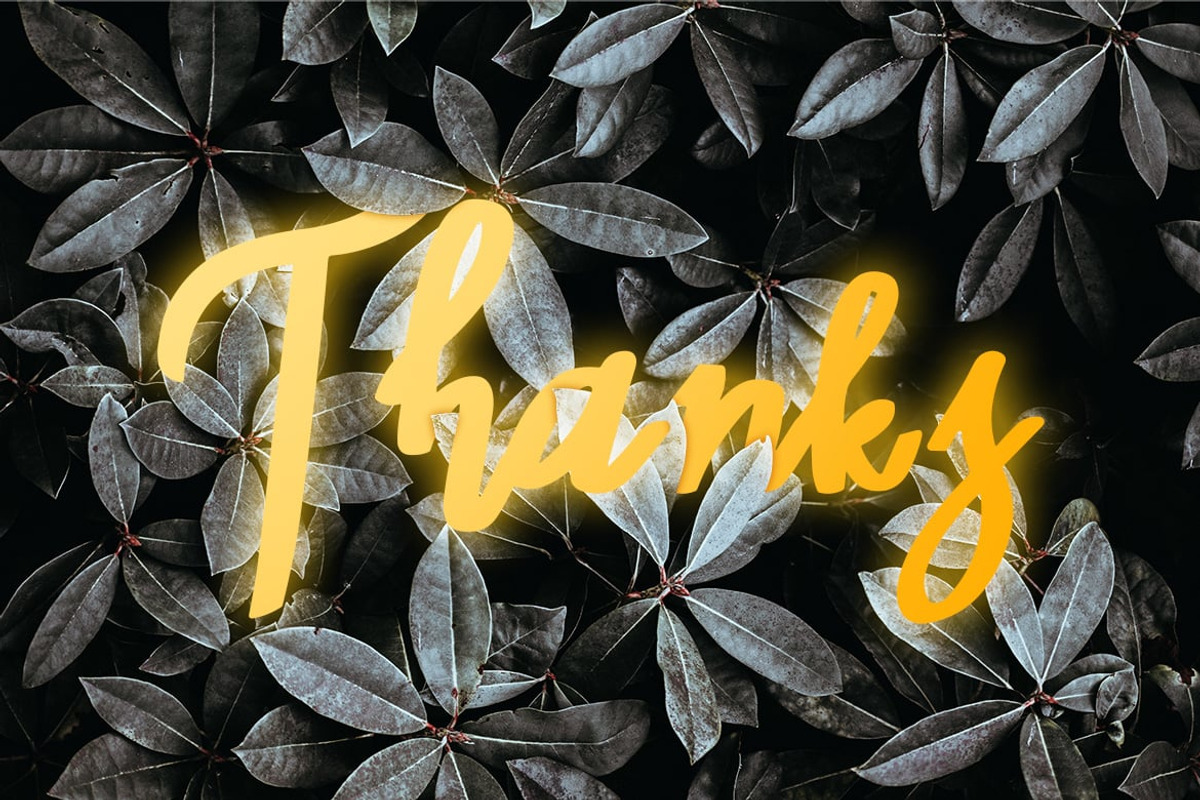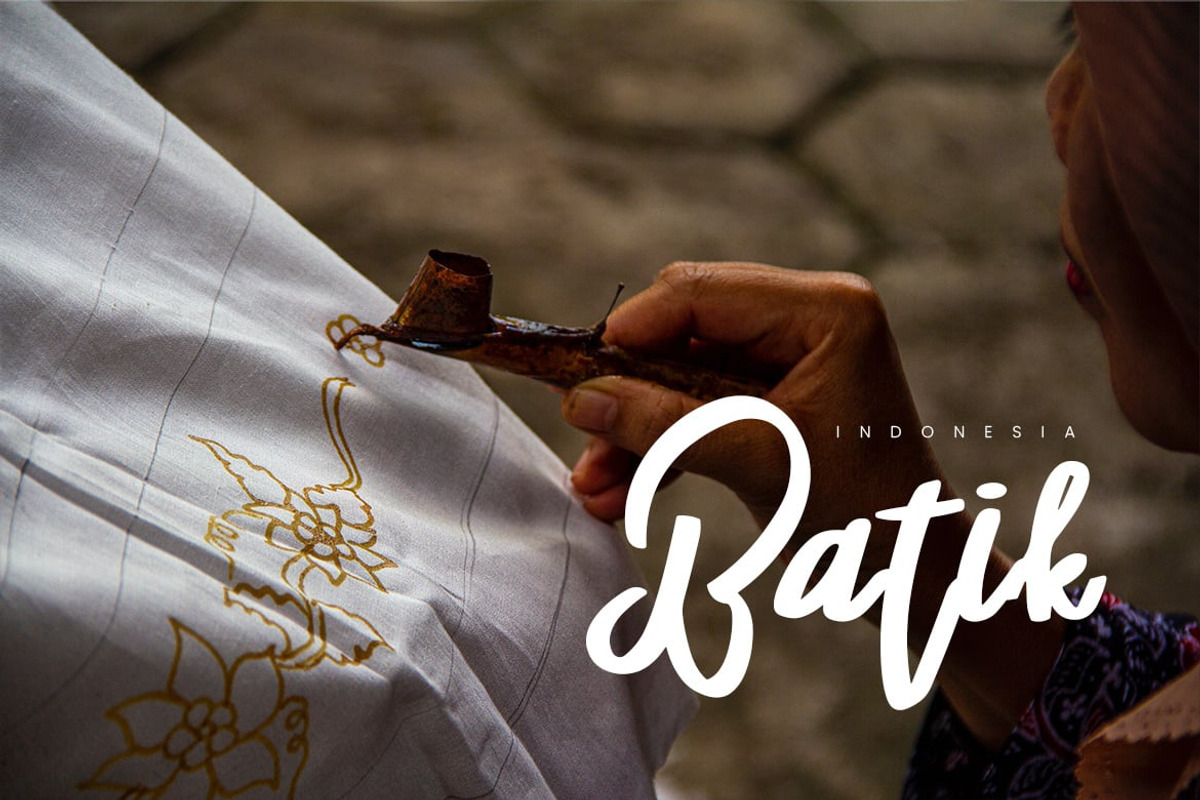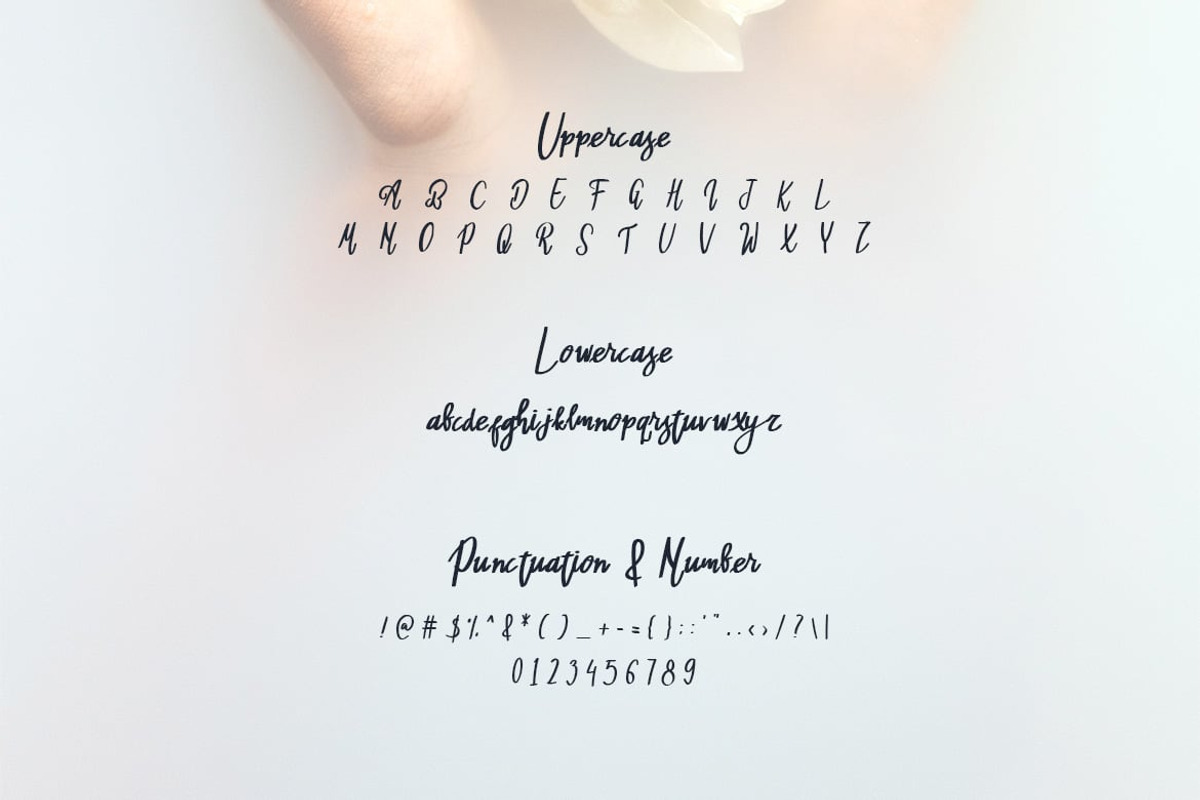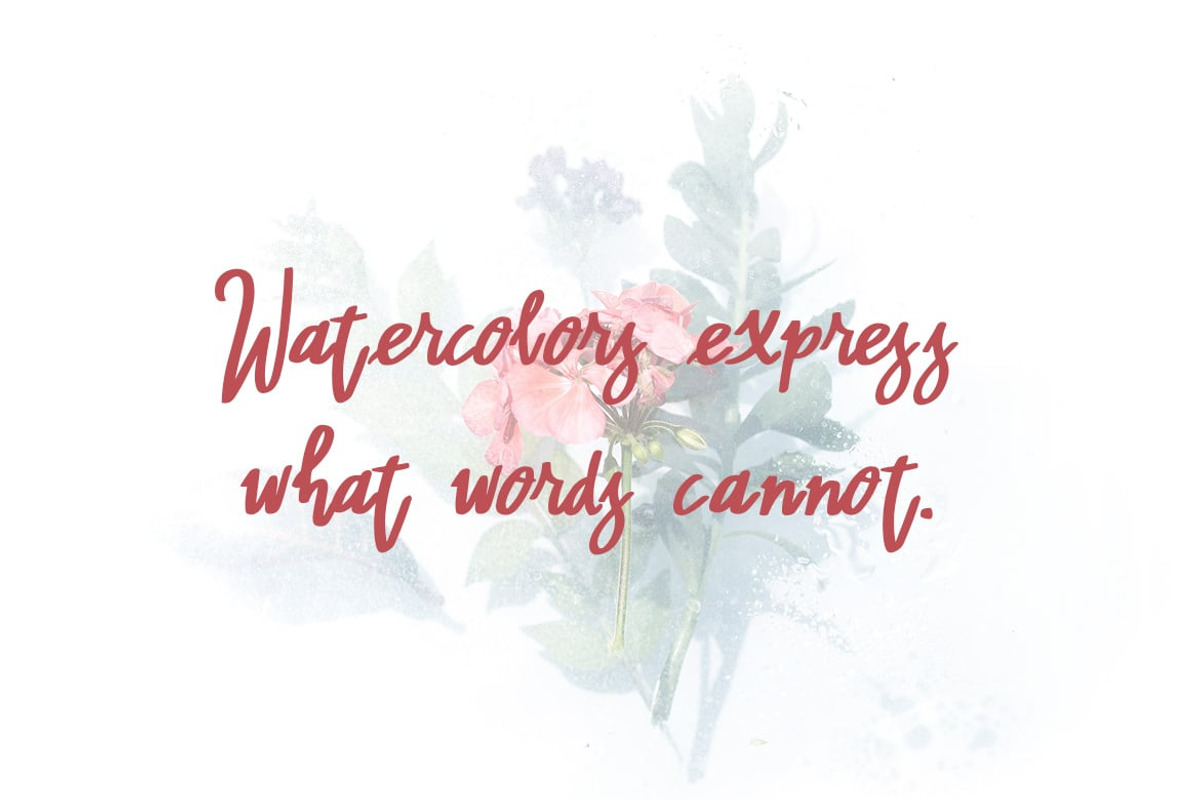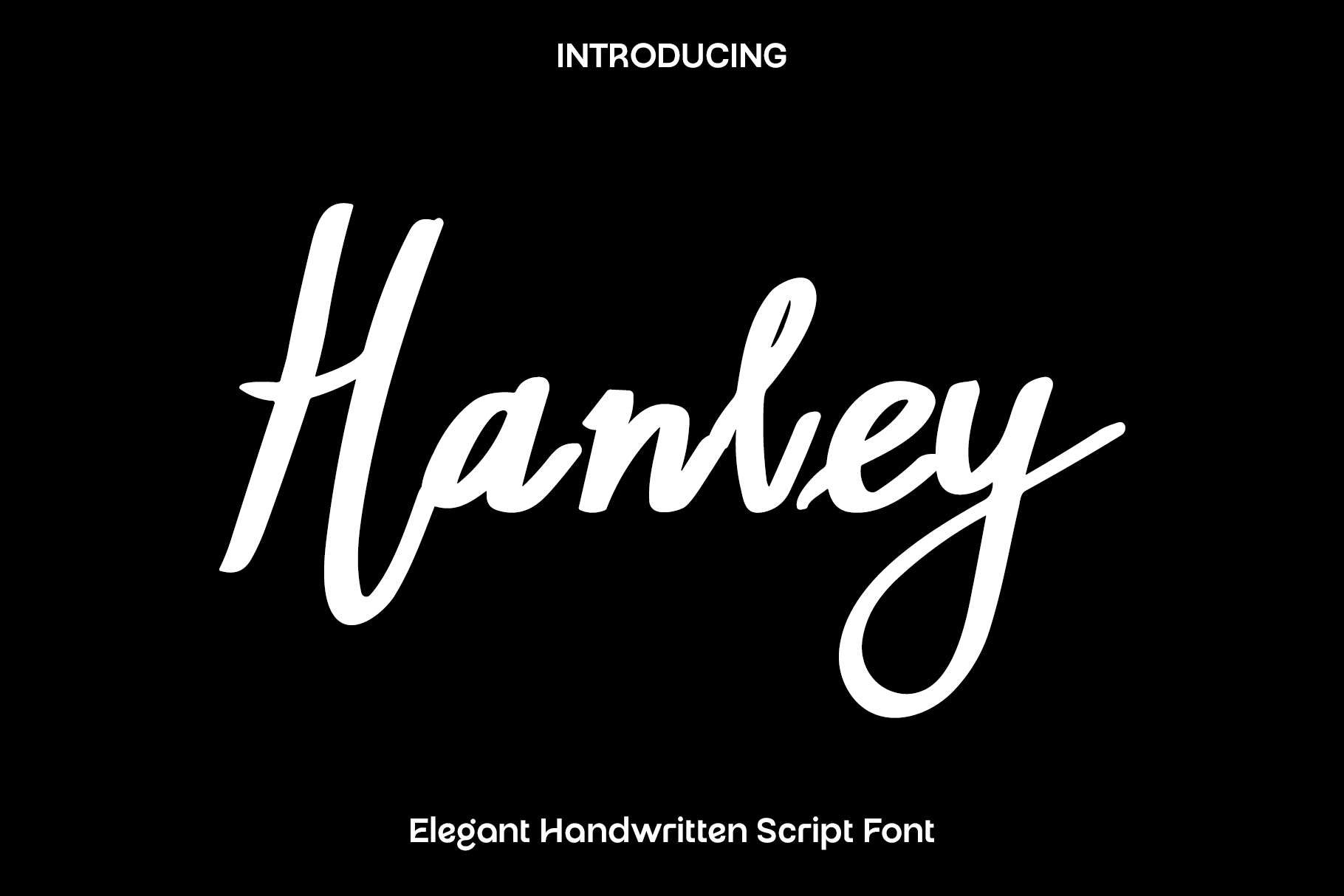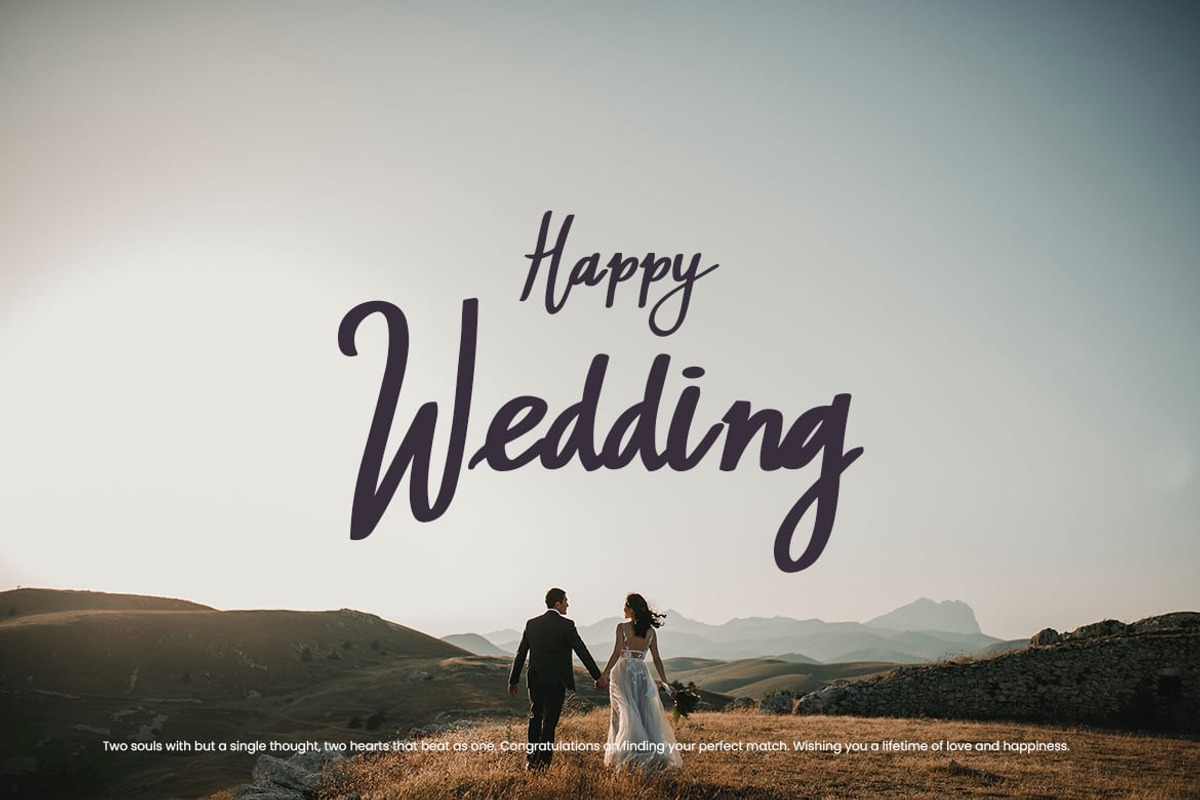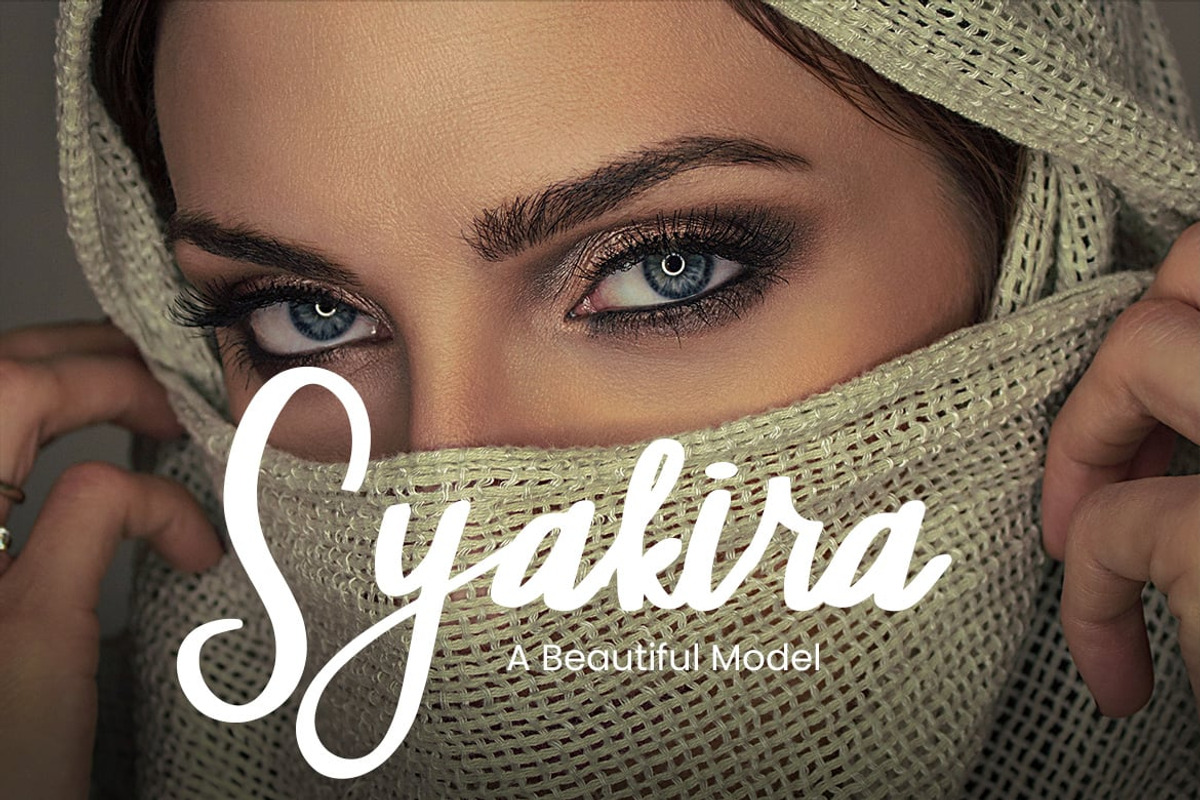
Hanley - Elegant Script Font
Hanley is an elegant handwritten script font created to bring natural beauty, warmth, and timeless sophistication to your creative projects. Inspired by graceful handwriting and modern calligraphy, Hanley features smooth flowing strokes and carefully crafted letterforms that create an authentic handwritten appearance. Every character is designed to capture the charm of handwritten notes while maintaining excellent readability, making your typography feel personal, refined, and memorable.
Perfect for branding, logos, wedding invitations, greeting cards, product packaging, labels, photography watermarks, social media graphics, fashion branding, stationery, advertisements, quotes, editorial layouts, and creative marketing materials, Hanley adapts beautifully across both print and digital media. Its elegant handwritten style adds a luxurious and personal touch that enhances every design with effortless charm.
Designed for creators who value expressive typography, Hanley offers the perfect balance of style and functionality. Whether you are building a boutique brand, designing wedding stationery, creating handmade product packaging, or developing stylish promotional content, Hanley delivers a polished handwritten aesthetic that leaves a lasting impression.
With its graceful personality and premium craftsmanship, Hanley transforms ordinary text into elegant handwritten typography filled with creativity, warmth, and authenticity. It is an essential addition to every designer's font collection for projects that demand beauty, versatility, and timeless handwritten appeal.
Hanley Font Features:
• Elegant handwritten script style
• Uppercase and lowercase letters
• Numerals and punctuation
• Perfect for logos, branding, weddings, invitations, packaging, labels, stationery, photography, social media, and creative marketing materials
• Suitable for both print and digital projects